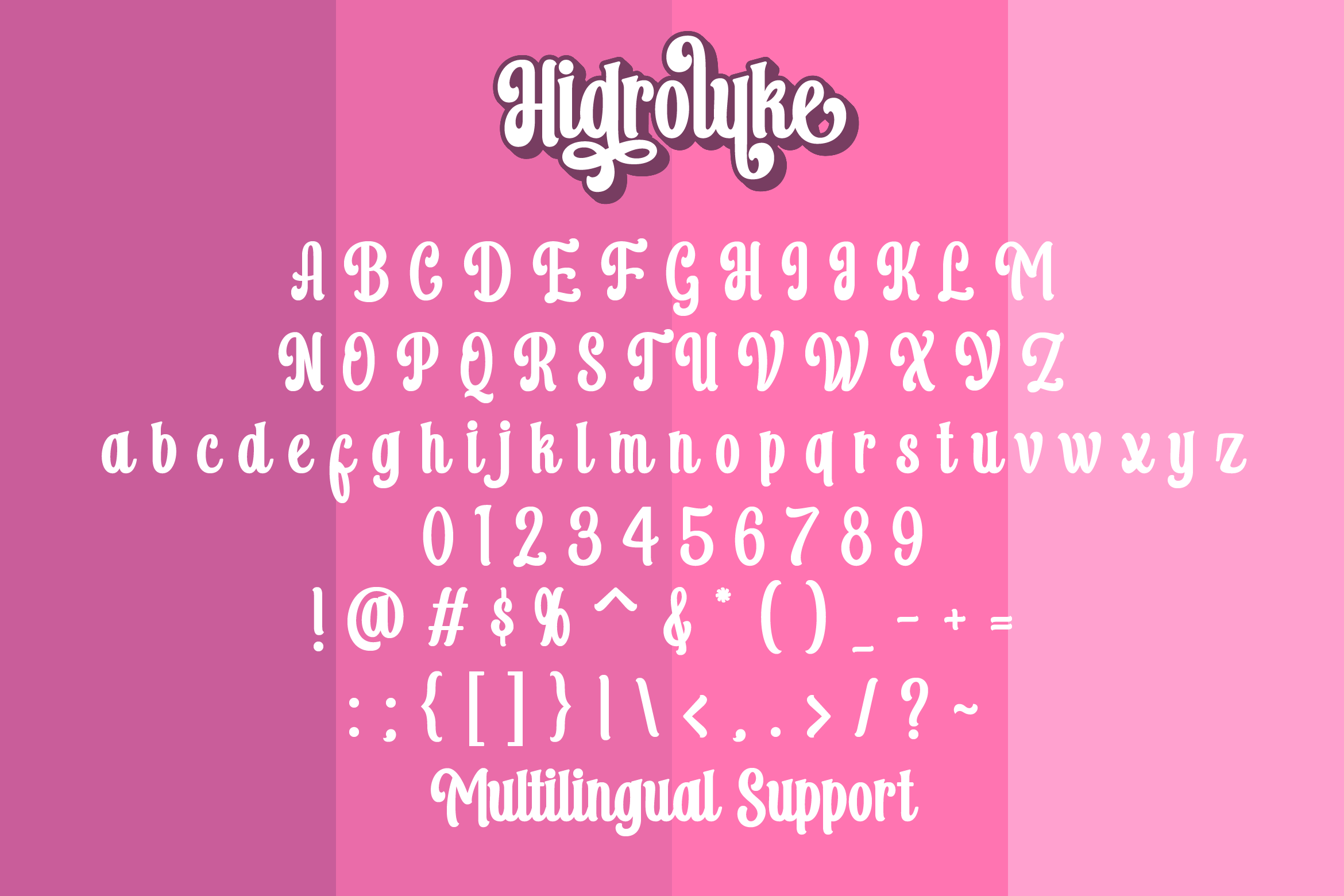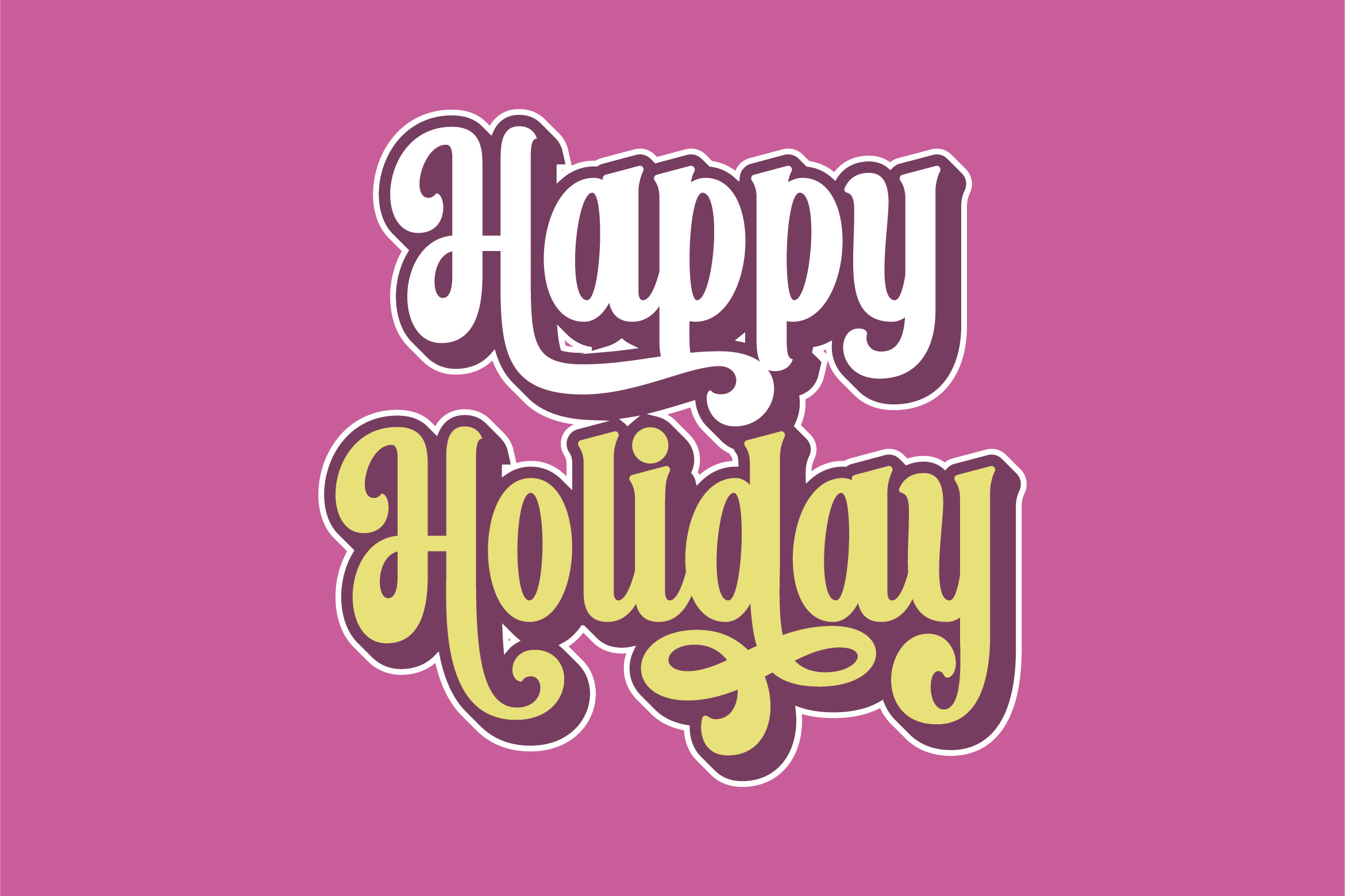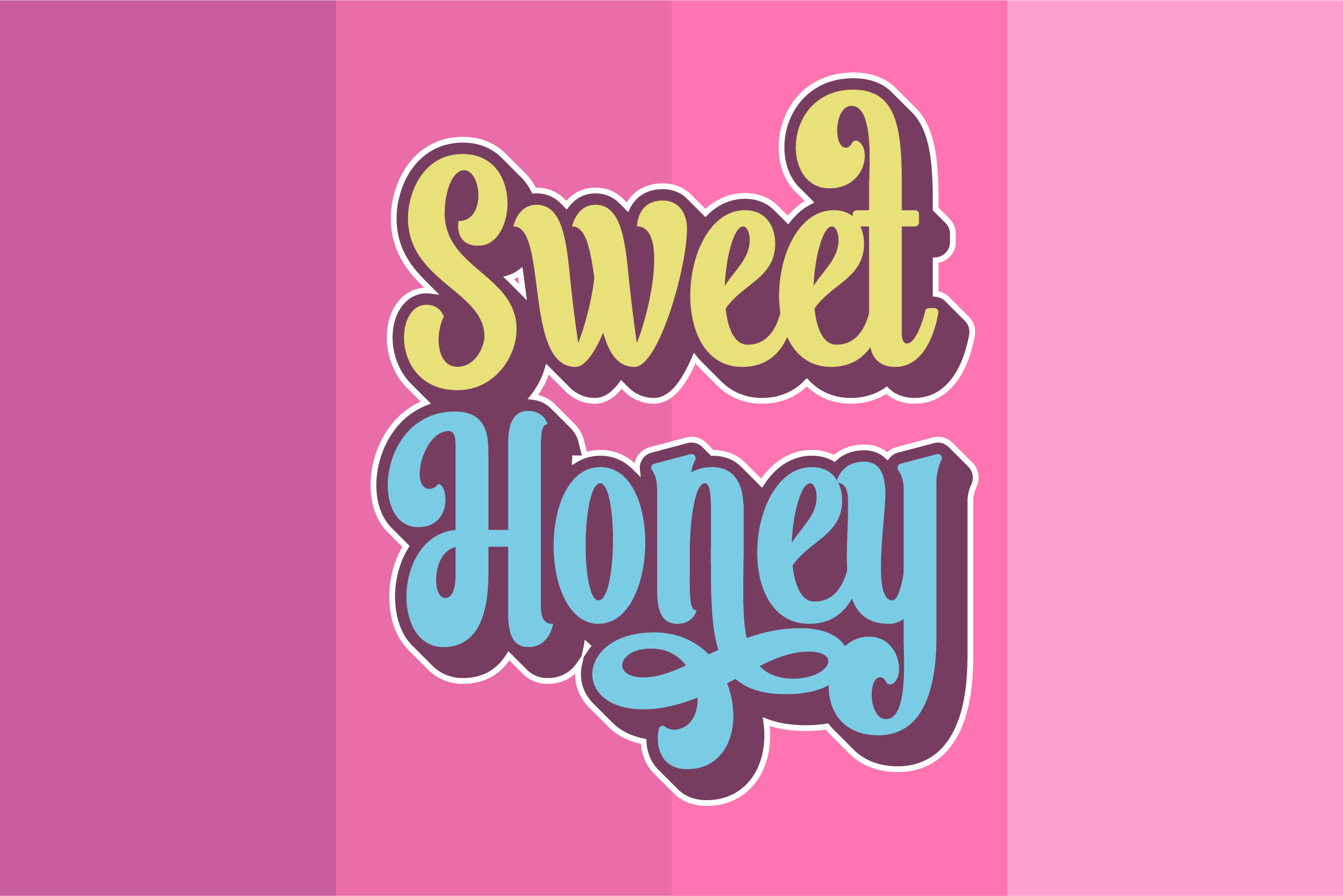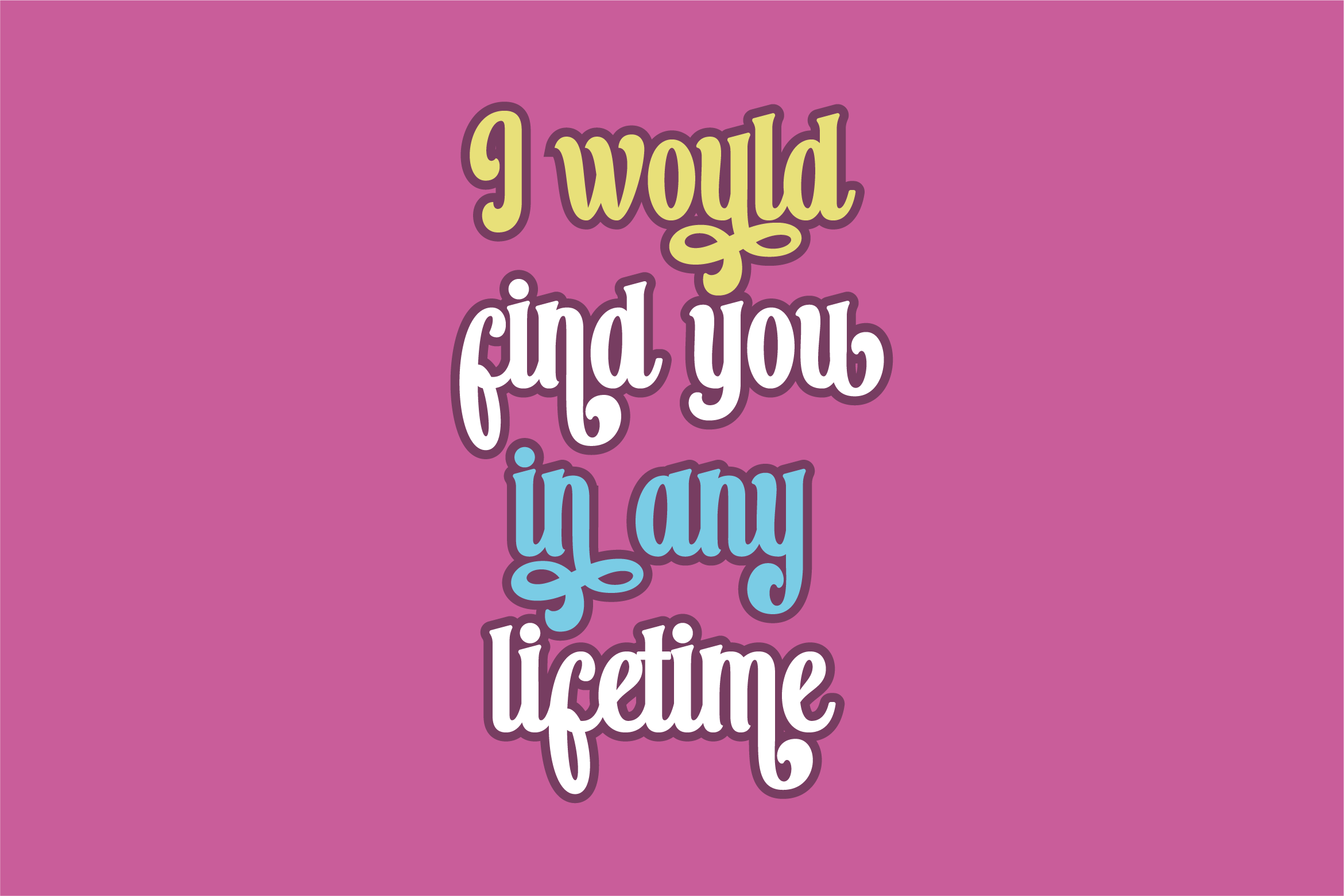
Hidroluke Font
Hidroluke Script Font is a modern script font created to help you design logotypes with a modern style for your brand or your clients, and also you can use it for designing all of the graphic stuff such as badges, signs, esports, headlines, urban design, t-shirts/apparel, poster, etc. This font is PUA encoded, which means you can access all of the amazing glyphs and ligatures with ease!